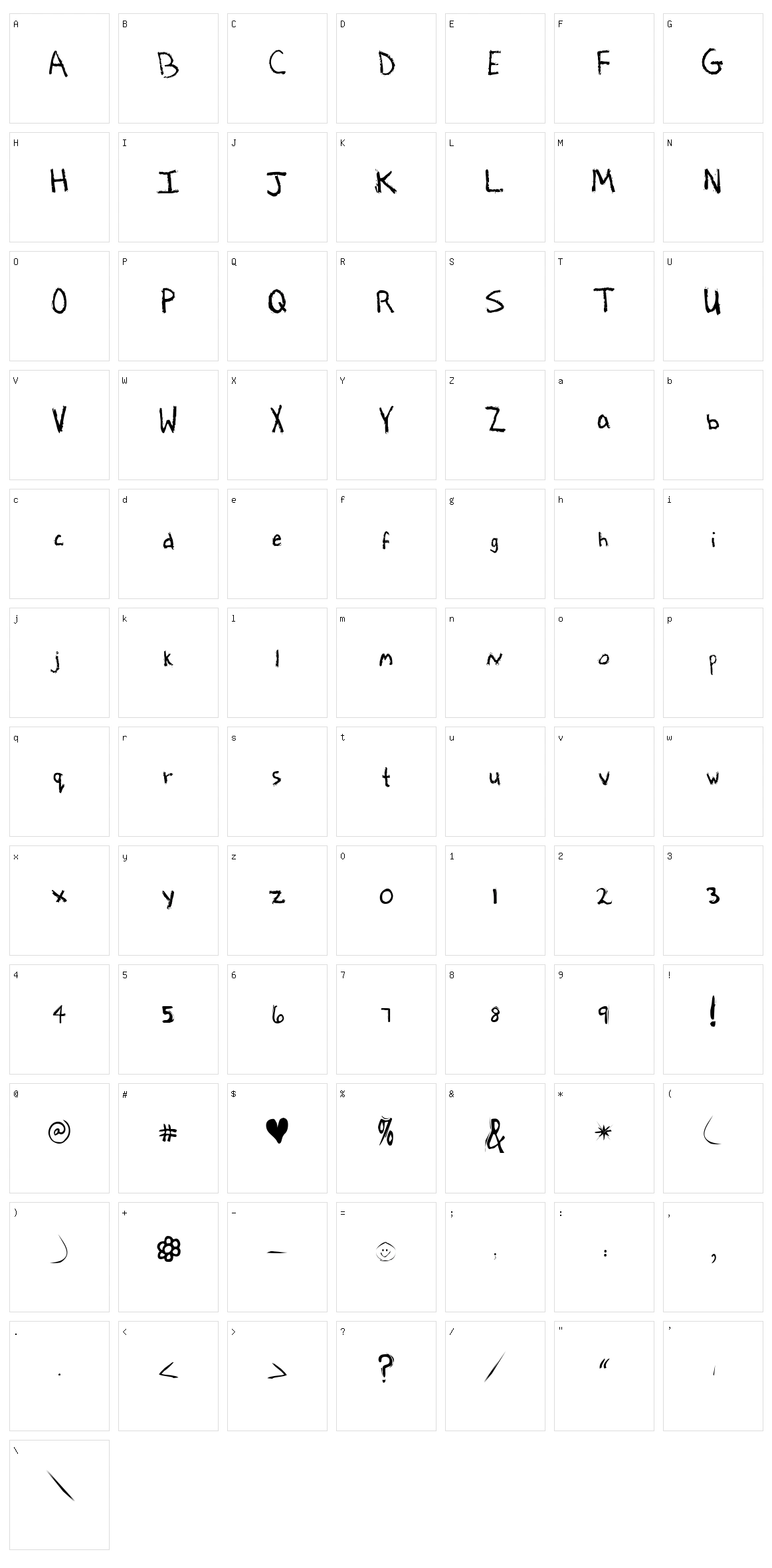
The free font Lactose Intolerant is carefully designed by Serendipity Fonts, showcasing a thoughtful balance of creativity and usability and falls under the Trash font style. When you download the ZIP file, it contains only 31.11 KB of font files, making it lightweight and quick to download. Please review the license details below to understand permitted usage and distribution rights. If license information is not available, we recommend using this font for personal projects only or contacting the author directly for commercial usage permissions.